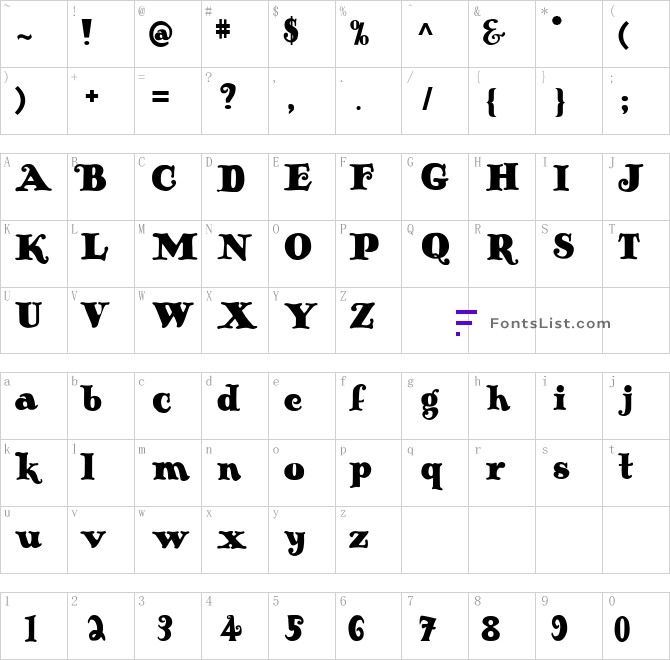
- Font Name:Antique No 14
Antique-No-14-Regular.ttf is a very beautiful artistic font, Antique-No-14-Regular.ttf is widely used in the design and printing of various books and pictures,Antique-No-14-Regular.ttf has a strong visual impact,Antique-No-14-Regular.ttf is a commonly used font in newspapers, magazines and books, and is used in posters, e-commerce Poster design, store design, logo design, font design and other fields.Antique-No-14-Regular.